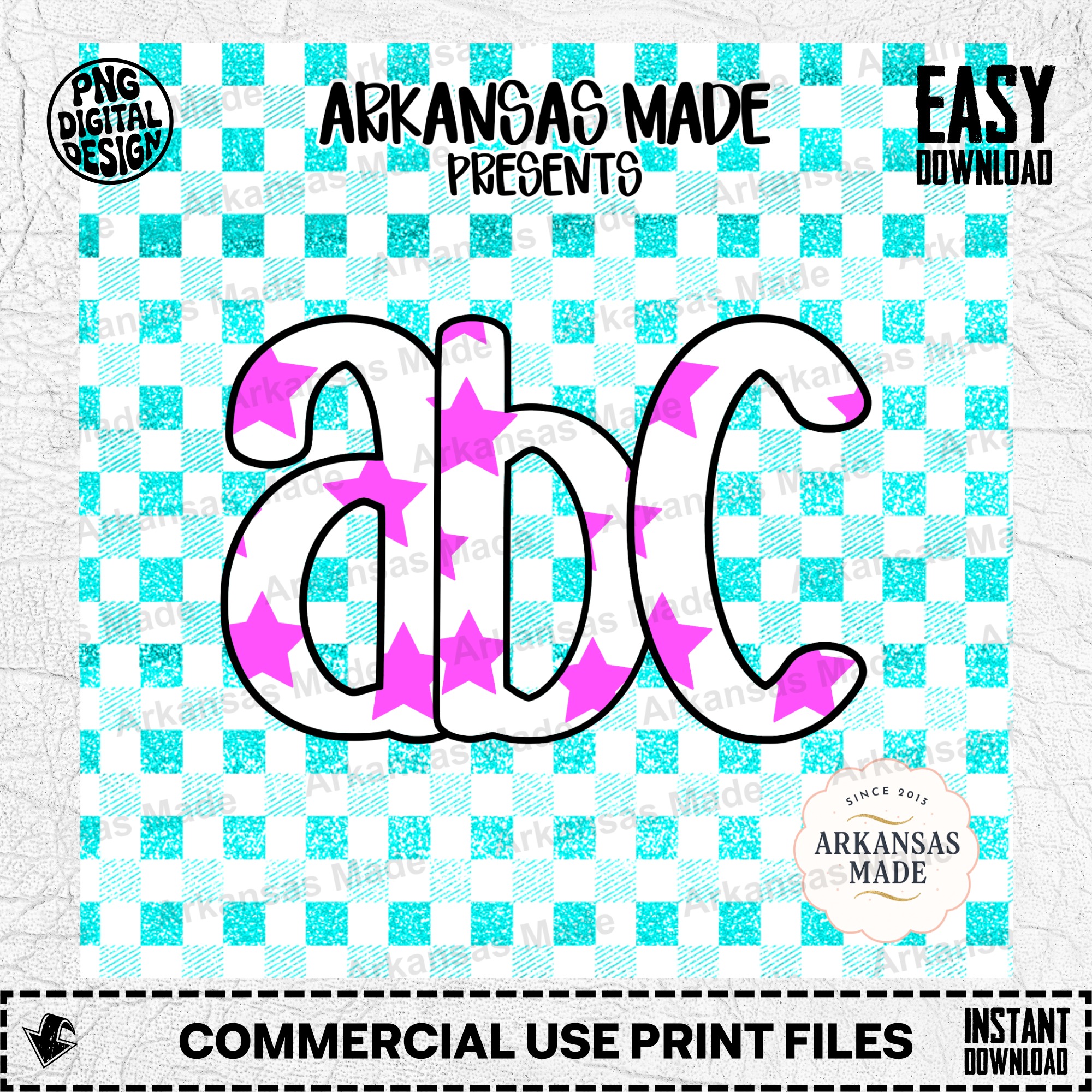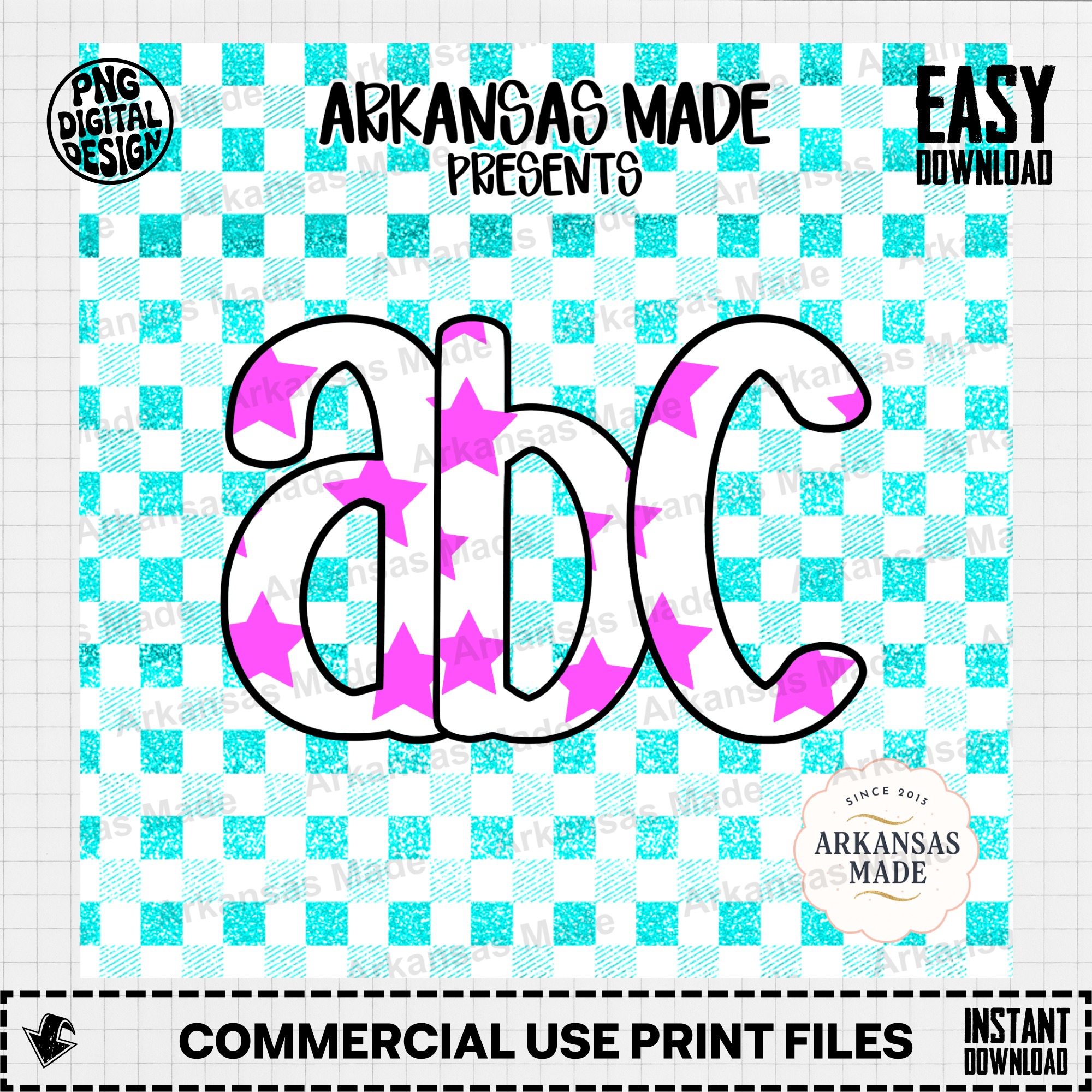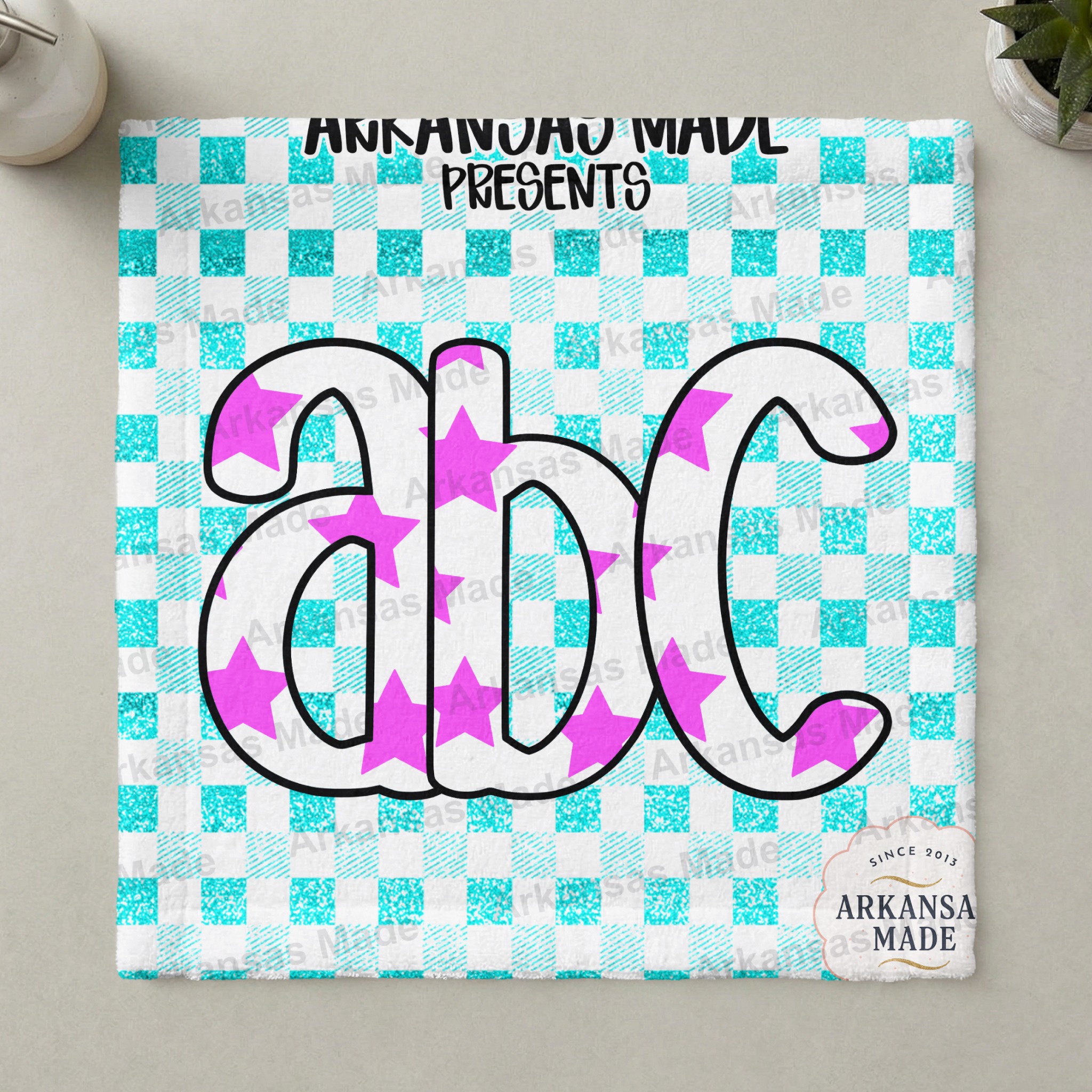
Elevate your designs with this vibrant Pink Star Letters Digital Download Alpha Set, featuring a bold teal glitter gingham alphabet font for instant creative projects. This preppy and playful ABC PNG SVG set is ideal for crafters, small business owners, and teachers looking to add a unique touch to their creations. Perfect for personalized gifts, custom apparel, party decor, or eye-catching digital art, it brings a cheerful Y2K-inspired vibe to any occasion. Instantly download and unleash your imagination with these versatile letters.